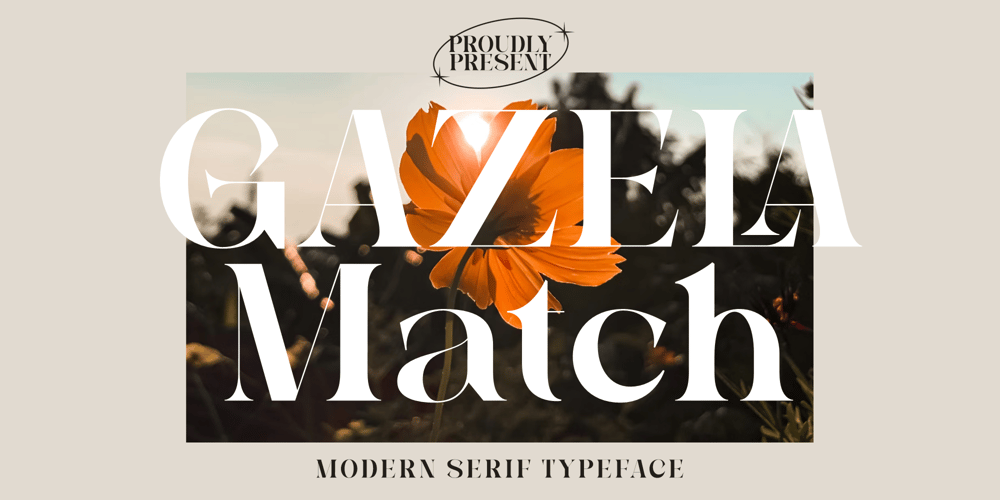
Gazela Match Font Family was designed by Hunaiza Aljahsy and published by HunaizaAljahsy. Gazela Match contains 1 styles and family package options. introducing Gazela Match is a modern and elegant sans serif font. Gazela Match is well-suited for advertising, branding, logotypes, packaging, titles, headlines and editorial design. I created more much alternates variant and much natural ligatures to make this font very classy and look so beauty. Gazela Match was built with openType features make your project wil be perfect.